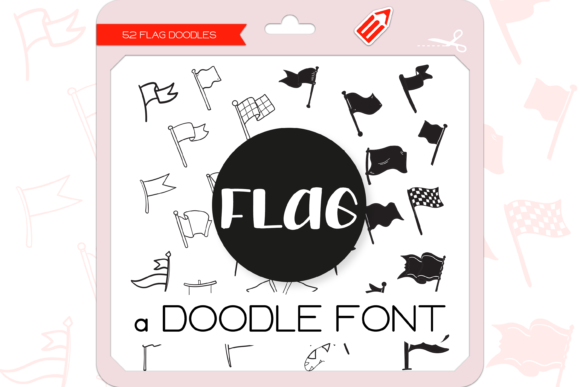
Welcome to the world of The Flag Font, where creativity and fun unite! Unleash your imagination and embark on a typographic journey like no other. The Flag Font is a quirky and delightful dingbats font, meticulously handcrafted with 52 hand-drawn doodles, each one a testament to artistry and whimsy.
Immerse yourself in an ocean of expressive possibilities. Whether you're a seasoned designer, a budding artist, or simply a creative soul seeking unique ways to convey your messages, The Flag Font is your ultimate companion. Elevate your designs to new heights with a touch of hand-drawn charm and playful aesthetics.
With The Flag Font at your fingertips, transform ordinary texts into captivating visual masterpieces. Craft irresistible banner messages that demand attention, leave a lasting impression, and ignite conversations. Create eye-catching social media posts that pop off the screen and engage your audience with a splash of visual intrigue.
The Flag Font is not just a collection of doodles; it's an invitation to let your creative spirit soar. Add a personal touch to your branding, logo designs, and marketing materials. Make your presentations stand out, leaving a lasting impression on your audience. Unleash your inner child and let your imagination run wild as you explore endless possibilities with The Flag Font.
So why settle for ordinary fonts when you can embrace the extraordinary? Dive into the world of The Flag Font today and unlock a treasure trove of creative expression. Let your designs radiate with a unique charm that captures hearts and imaginations. Experience the joy of creating with a font that inspires, delights, and ignites your passion for visual storytelling.